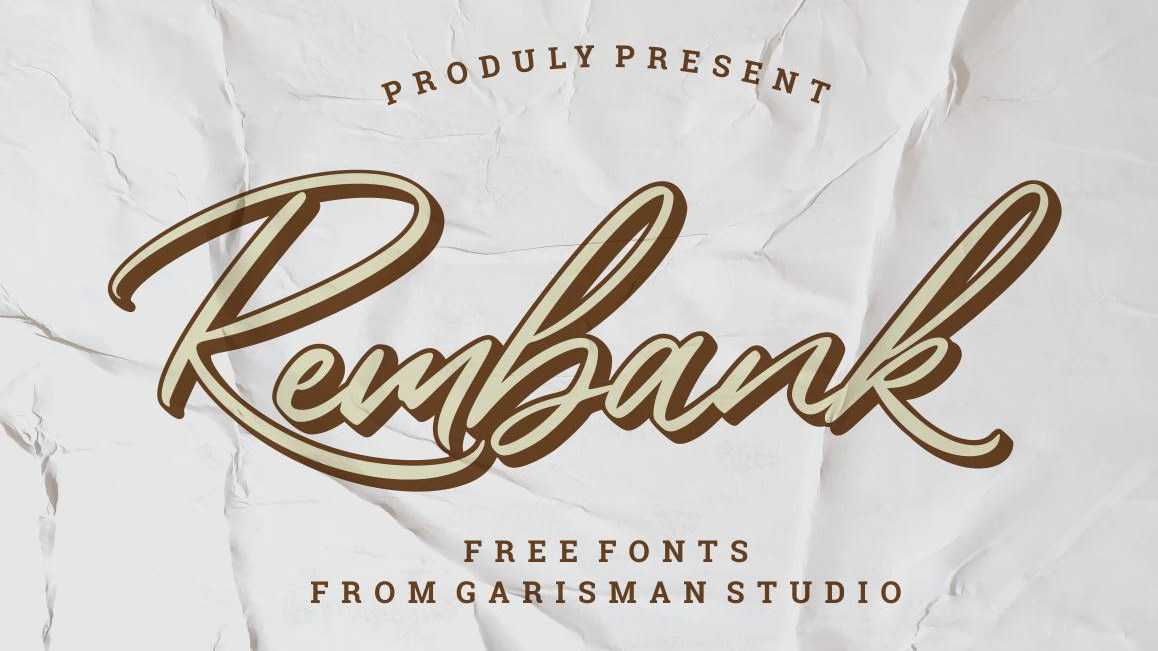
Download Rembank font, a stunning handwritten script with a stylish look and energetic flow. Rembank font is suitable for use for personal branding, logos, labels, posters, t-shirt designs and more.
Designer: Garisman Studio